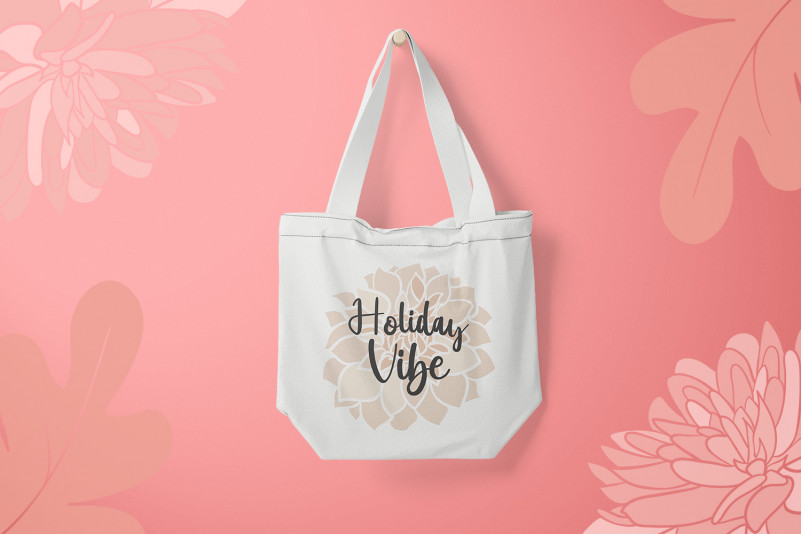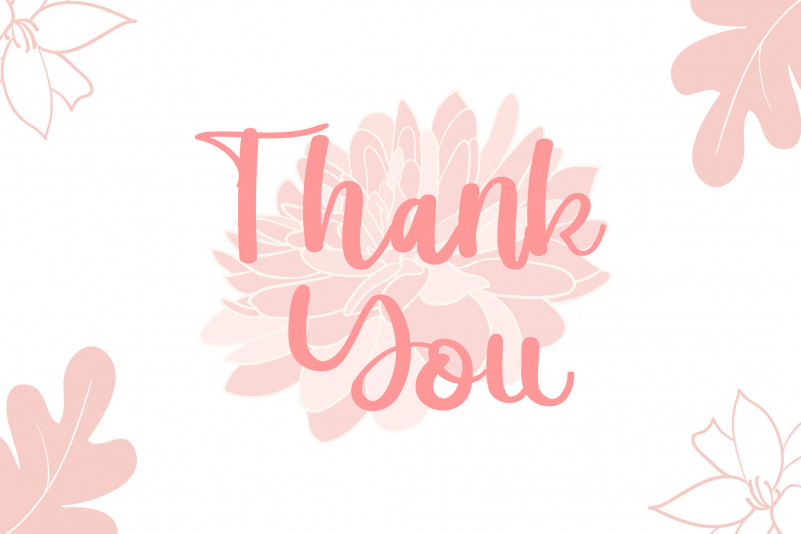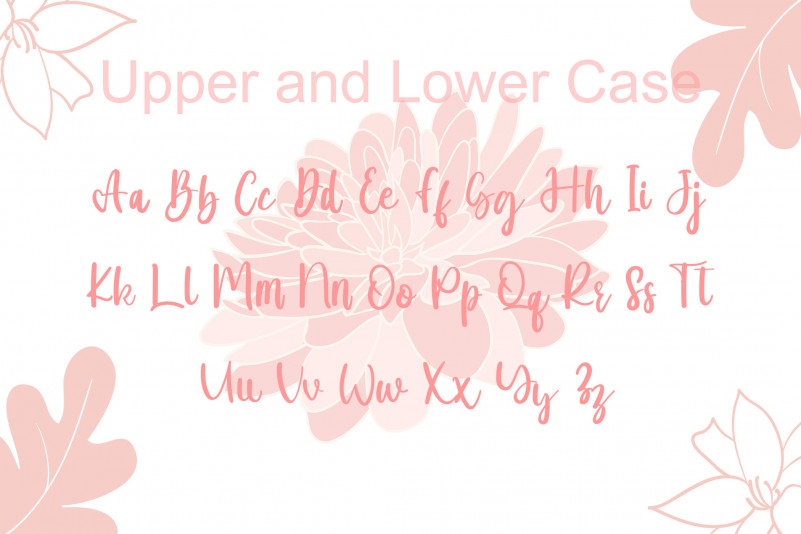
Julie Font
Julie Script Font
This is a stylish and incredibly elegant script font. It looks stunning on wedding invitations, thank you cards, quotes, greeting cards, logos, business cards and every other design which needs a customized touch. This font is PUA encoded which means you can access all of the glyphs and swashes with ease!